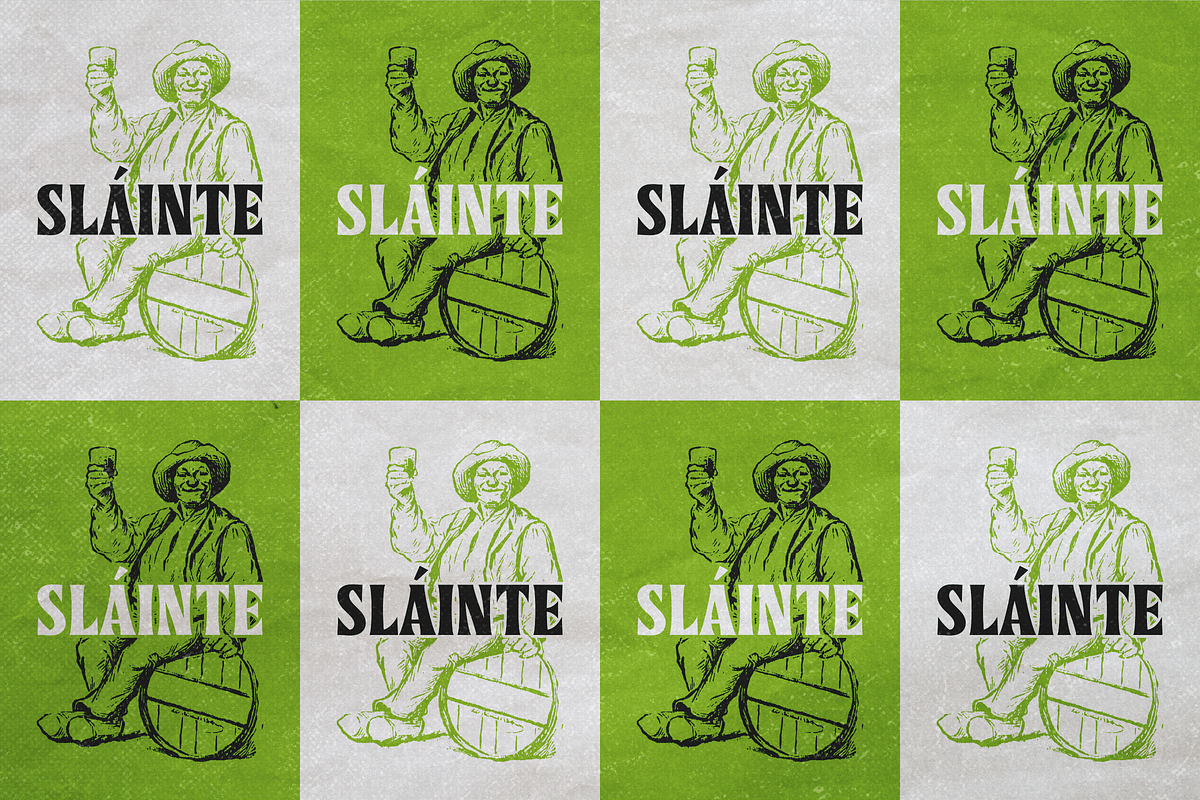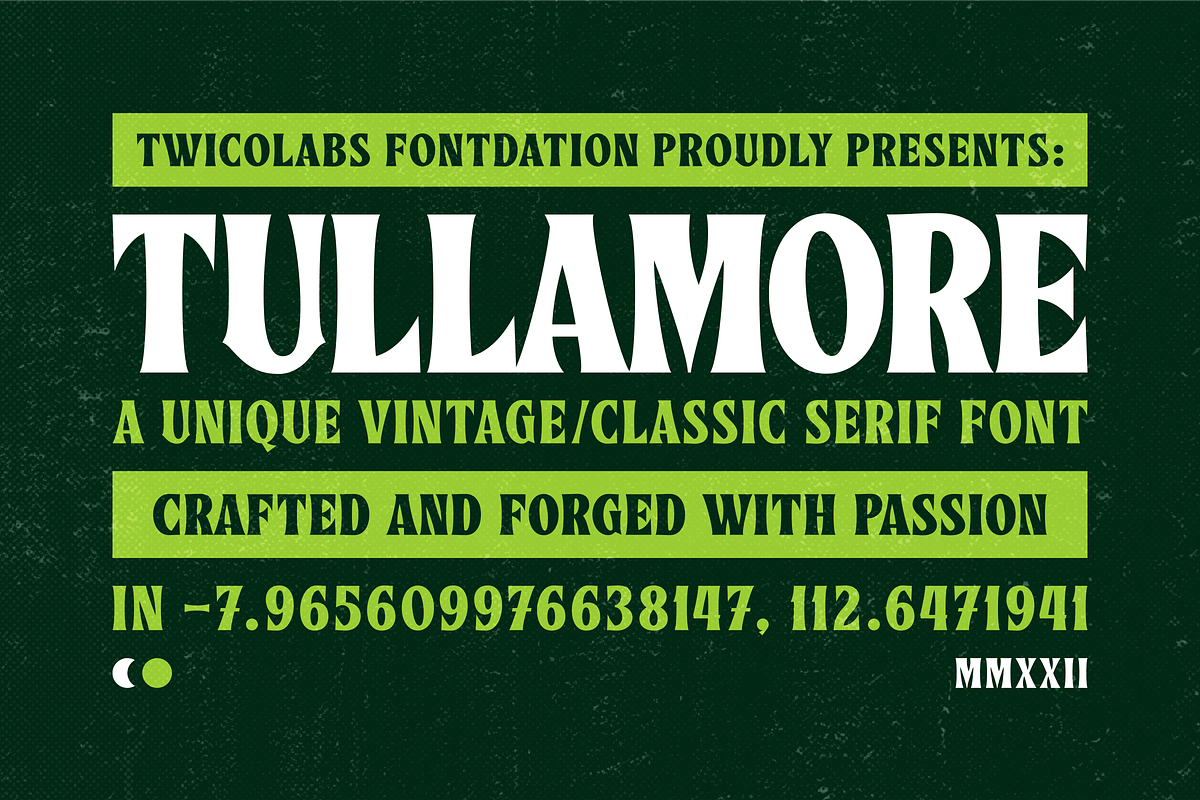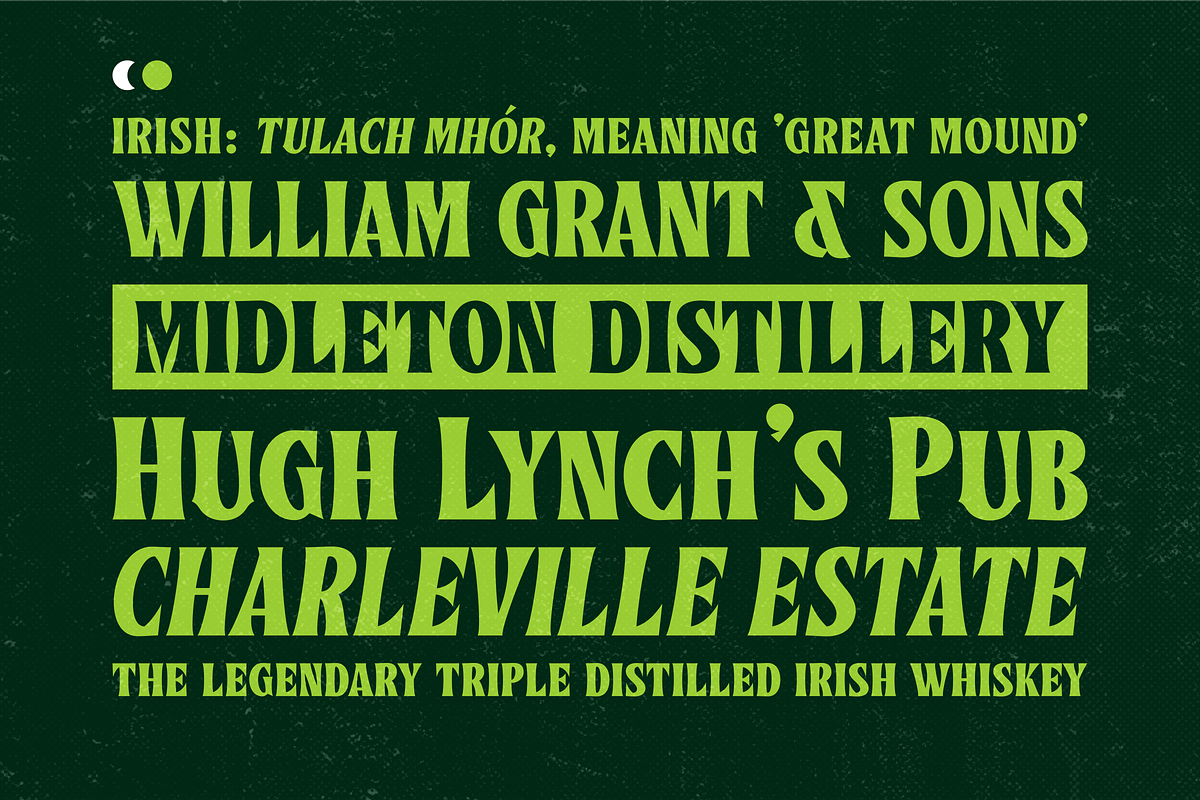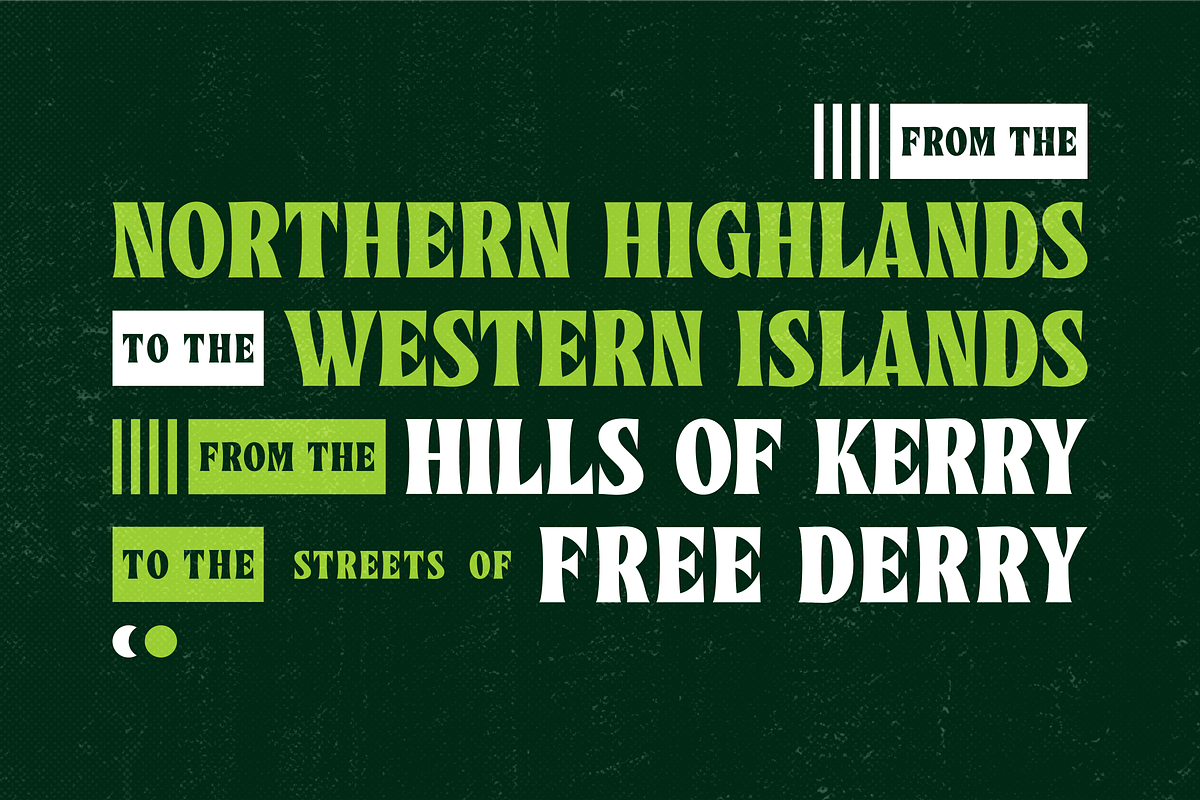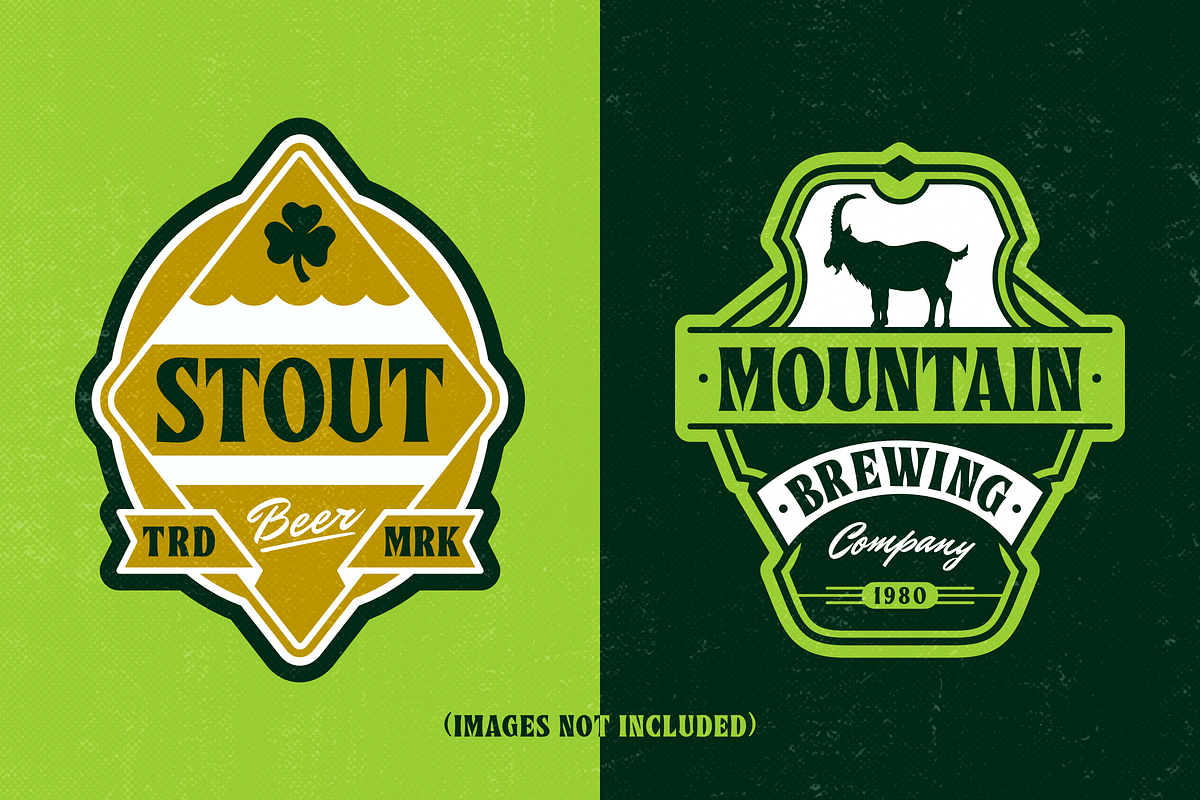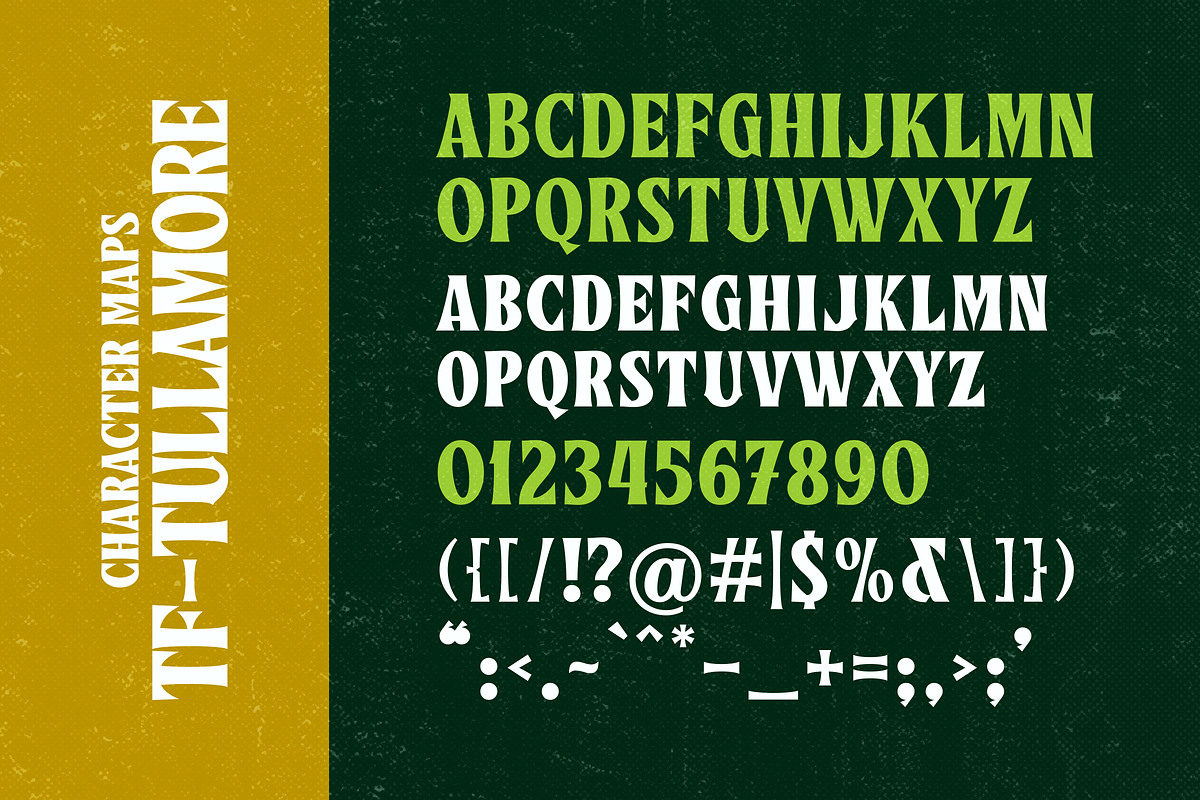
Tullamore | Classic Serif Font
Introducing Tullamore, a display/serif font that inspired by the vintage/classic letterforms. Mouse-crafted with high attention to details; clean lines, sharp edges and tempting curves. Available in slanted version too, gives you more options too play with. Suits best for title/headline, logo/logotype, packaging/label designs, etc.
Tullamore offers you standard upper/lower case characters, numerals, punctuations, some multilingual letters, etc. This font is a must have item for your designing arsenal.